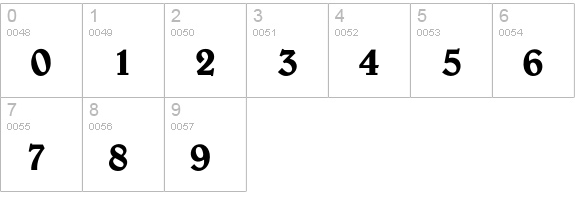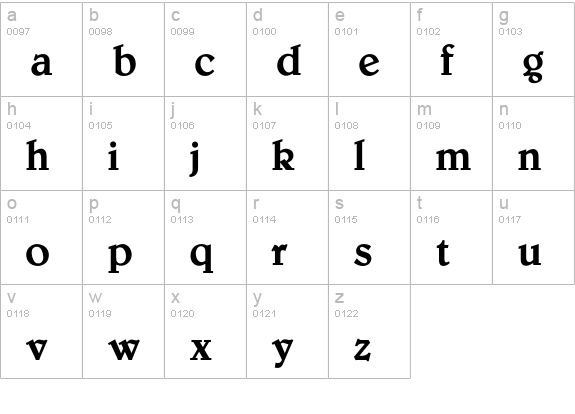
Bienvenue Font Details
Bienvenue font is a modern and elegant typeface designed to bring a touch of sophistication to your projects. Its clean lines and stylish curves make it a versatile choice for a wide range of design applications, from branding to editorial design. With a timeless appeal, Bienvenue font effortlessly combines classic elegance with a contemporary twist. What makes Bienvenue font even more appealing is the fact that it is available for free download at FontsMarket.com. This means that you can easily access this high-quality font and use it in your projects without any cost. Whether you are working on a personal project or a commercial venture, Bienvenue font is sure to elevate your design with its refined aesthetic and professional look. Download Bienvenue font today and add a touch of sophistication to your creations.